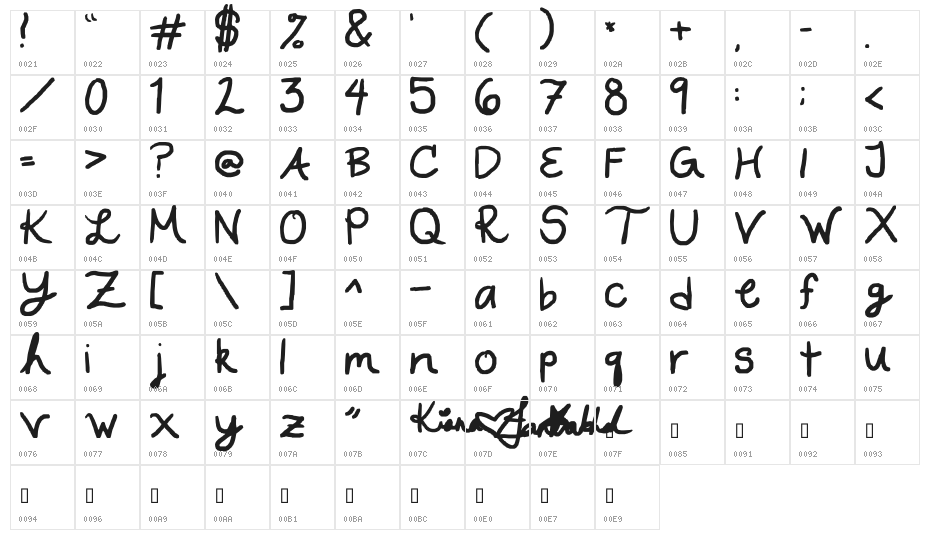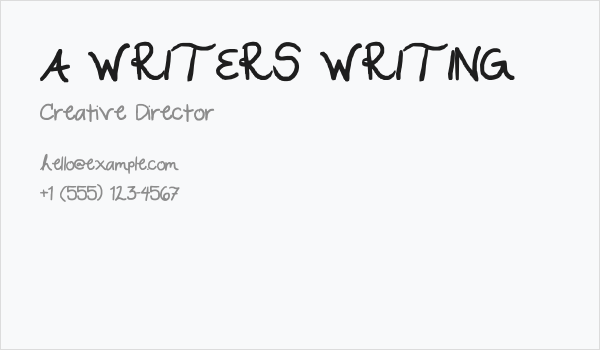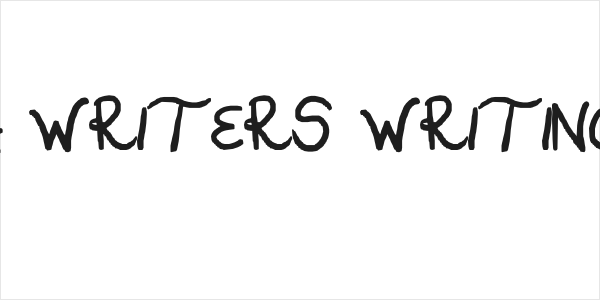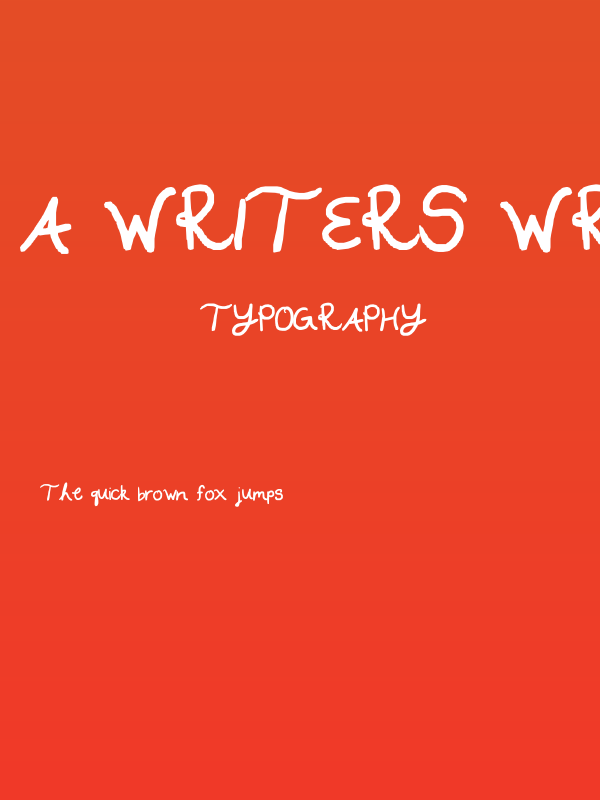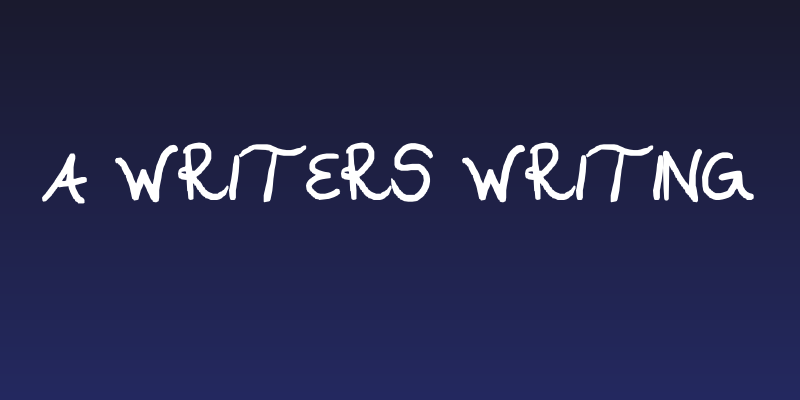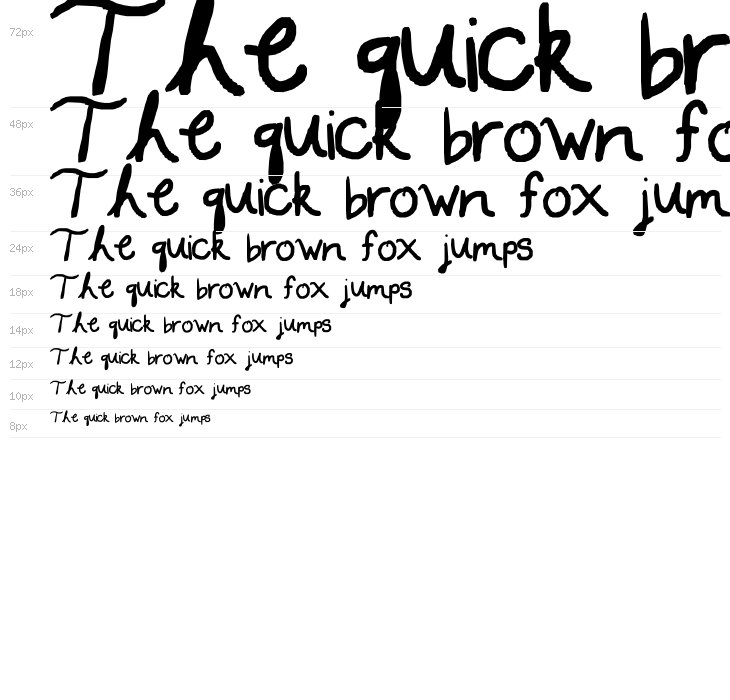
A WRITERS WRITING Font
A WRITERS WRITING Description
This font features a playful and casual handwritten style, characterized by its irregular and organic letterforms. The uppercase letters are bold and slightly uneven, giving a sense of spontaneity and creativity. The lowercase letters maintain a similar style, with some characters like 'g' and 'j' having distinctive loops and tails that add to the font's charm. The numbers are consistent with the overall style, appearing lively and dynamic. Special characters are well-integrated, maintaining the same whimsical feel. This font is perfect for projects that require a personal touch or a sense of informality.
| Proposed Projects | Ideal for greeting cards, personal blogs, children's books, or any project needing a friendly, informal touch. |